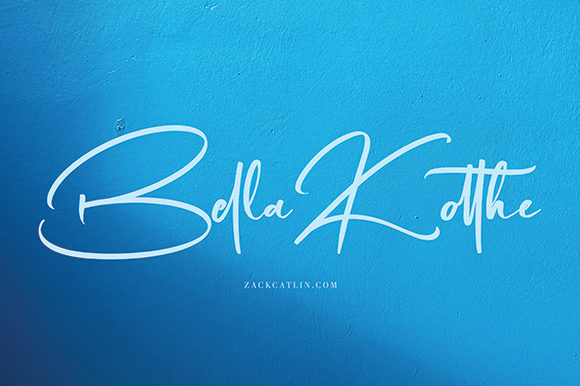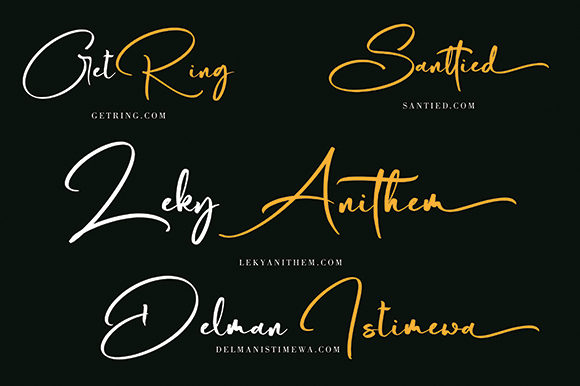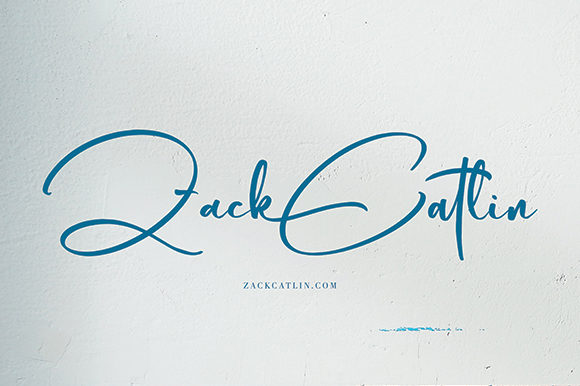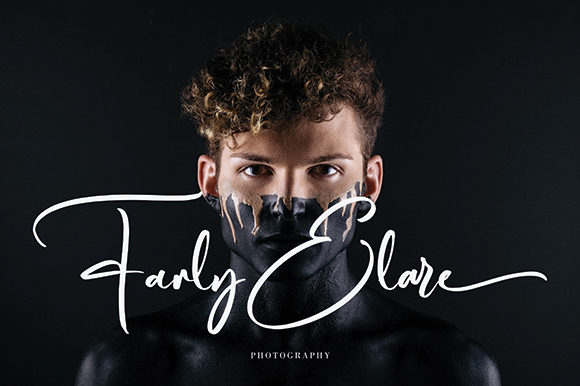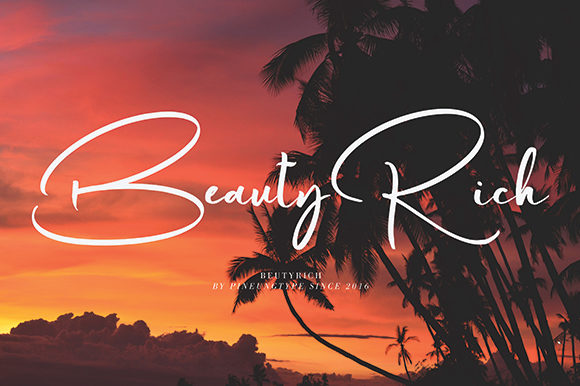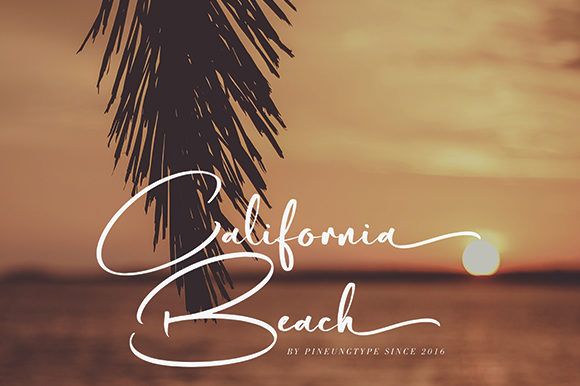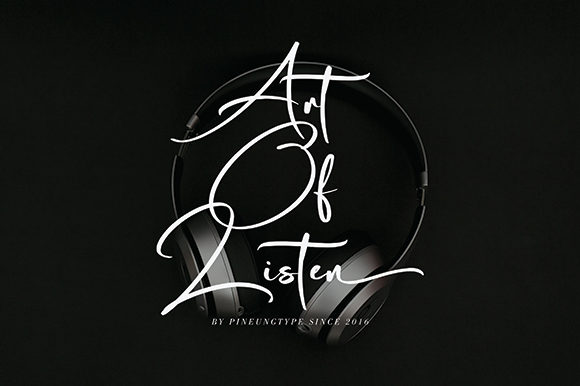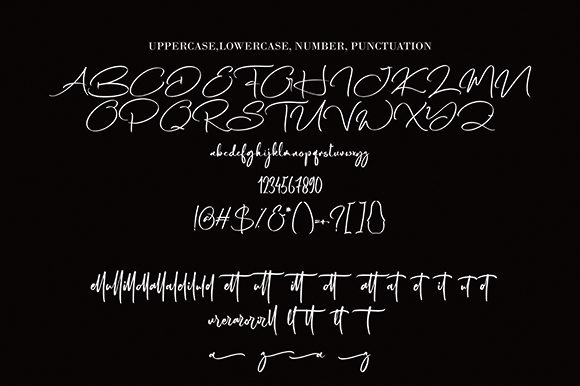
Berttang Sella Font
About Berttang Sella Font
Berttang Sella is a beautiful, smooth and elegant handwritten font. It looks beautiful on a variety of designs requiring a personalized style, such as wedding invitations, thank you cards, weddings, greeting cards, logos and so on.